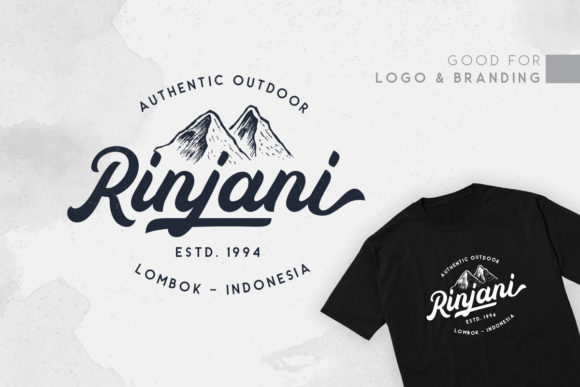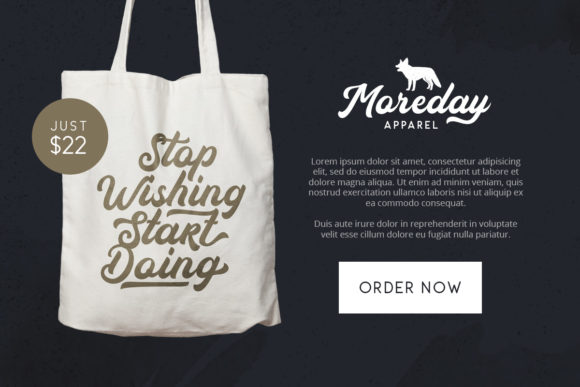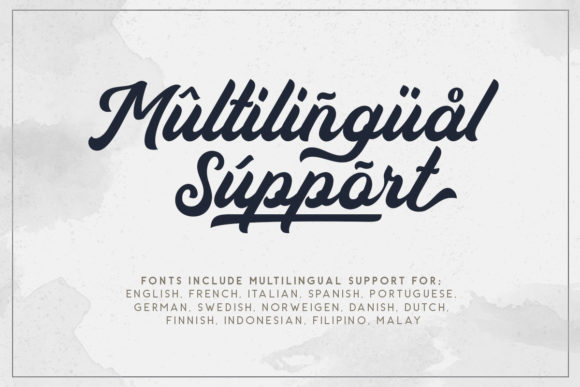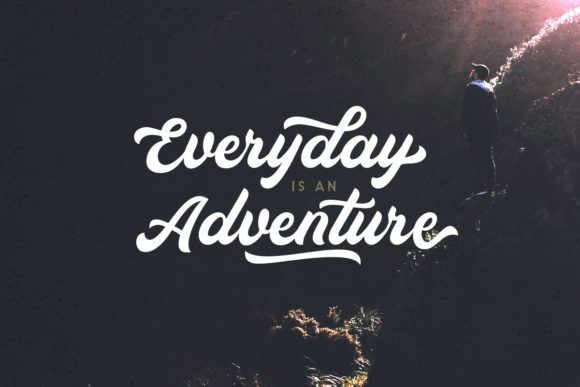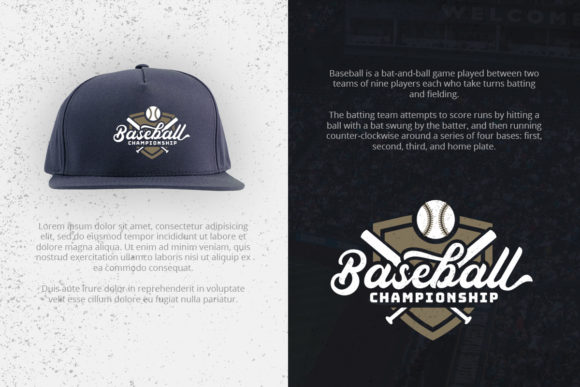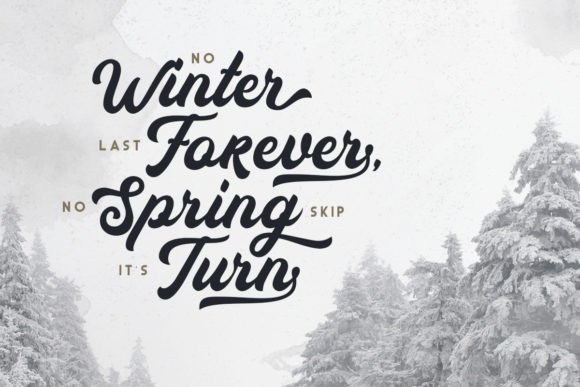
When Script Fonts Make a Statement
Have you ever been browsing through a design project, and suddenly, a beautiful script font catches your eye? It’s that moment when the font speaks louder than words, and you know you’ve found the perfect fit. For designers, this moment is pure magic, and it’s what drives us to create something truly special.
The Auckland Script Font is one such gem that can elevate any design project. This bold script font is designed to make a statement, and it’s perfect for logos, branding, quotes, and any other design that needs to stand out. Its strong look is both elegant and eye-catching, making it a valuable addition to any designer’s toolkit.
With the Auckland Script Font, designers can add a touch of sophistication and personality to their work. Whether you’re creating a logo, a brochure, or a website, this font is sure to make your design shine.
Auckland Script Font Key Features
- Unique Characteristics: Hand-drawn and script-based design, offering a personal and elegant touch to any project.
Auckland Script Font Review
I recently had the chance to work with the Auckland Script Font, and I must say it’s a mixed bag. There are some aspects that really shine, while others leave room for improvement.
- The Auckland Script Font is highly customizable. It comes with a wide range of options for adjusting the font’s weight, style, and spacing, making it a great choice for designers who like to fine-tune their work.
- The font’s script style is elegant and sophisticated, making it perfect for use in creative industries such as advertising, fashion, and design.
- The font is highly legible, even at small font sizes, making it a great choice for use in digital media such as websites and apps.
- The font is quite ornate, which can make it difficult to read in certain contexts. This may be a problem for designers who need to use the font in situations where legibility is paramount.
- The font’s script style can be a bit too stylized, which may make it difficult to use in situations where a more traditional font is required.
Overall, the Auckland Script Font is a solid choice for designers who are looking for a highly customizable and elegant script font. However, it may not be the best choice for designers who need a more traditional font or who are working in situations where legibility is a top priority.
Auckland Script Font is ideal for use in:
– Social media graphics and advertising
– Stationery and letterhead design
– Any design that requires a touch of elegance and sophistication.
Q: What is the recommended font size and line spacing for Auckland Script?
The recommended font size for Auckland Script is between 12pt and 24pt, depending on the context and desired level of legibility. For optimal readability, we recommend a line spacing of at least 1.2 times the font size. This will help to ensure that the text is clear and easy to read, even at smaller font sizes.